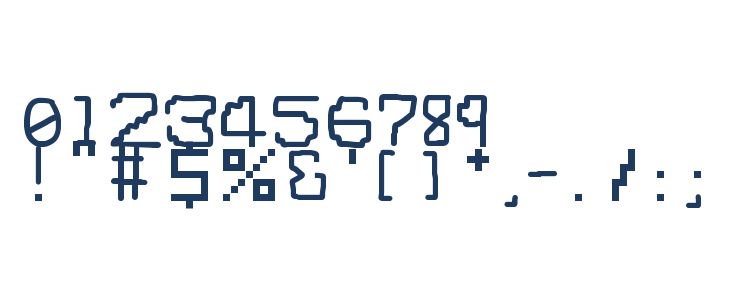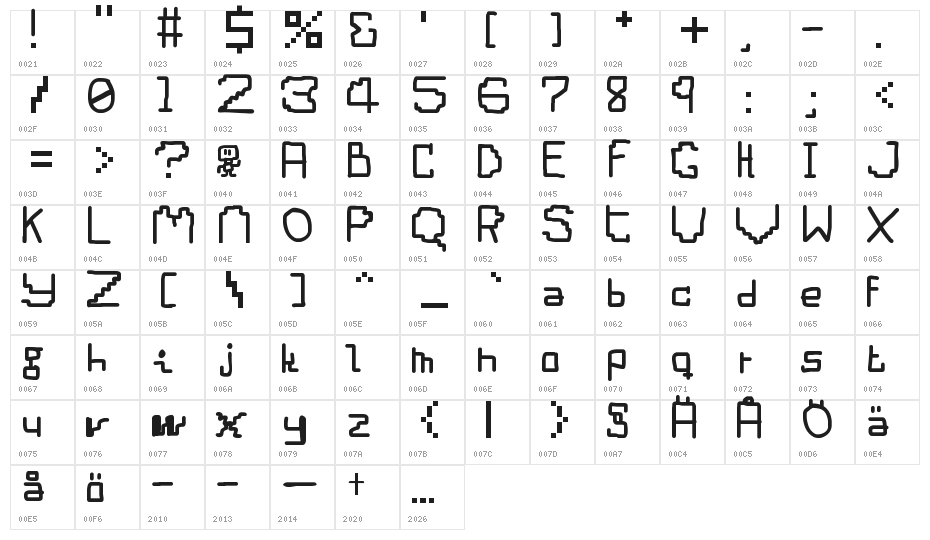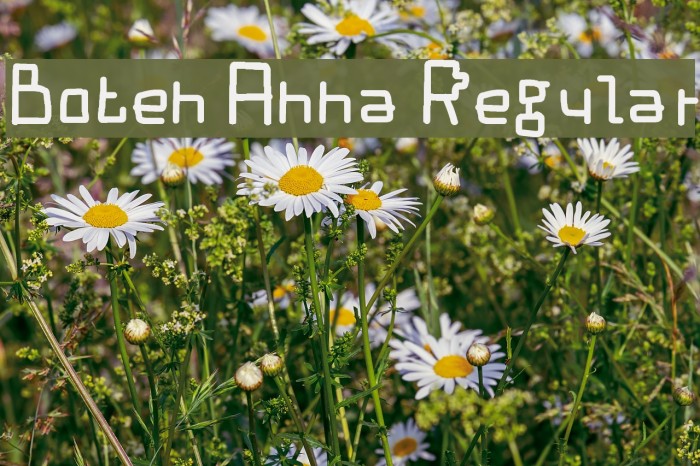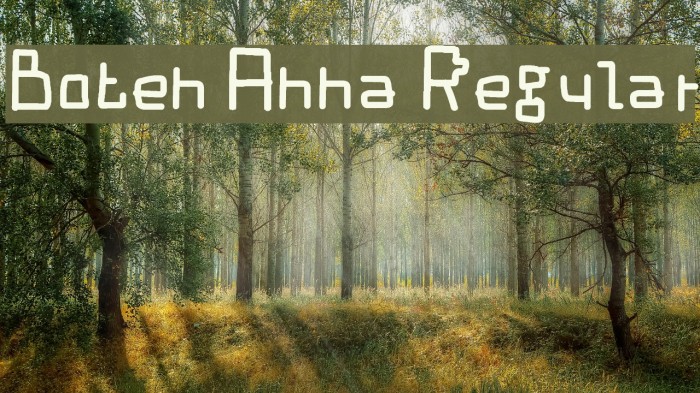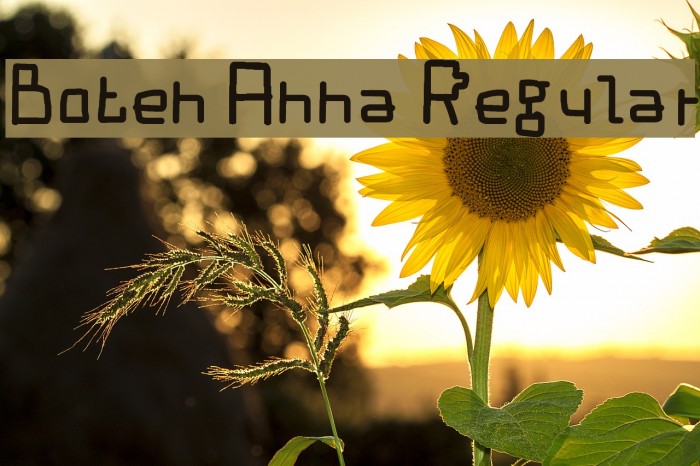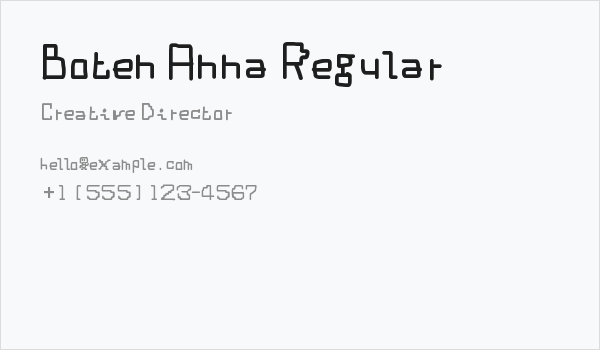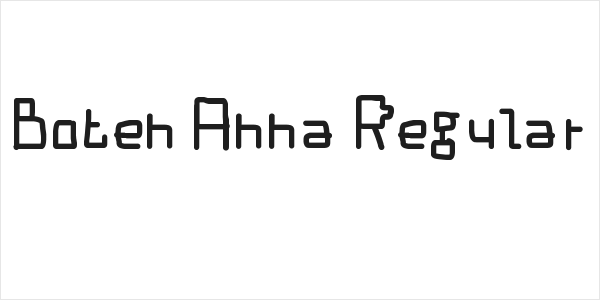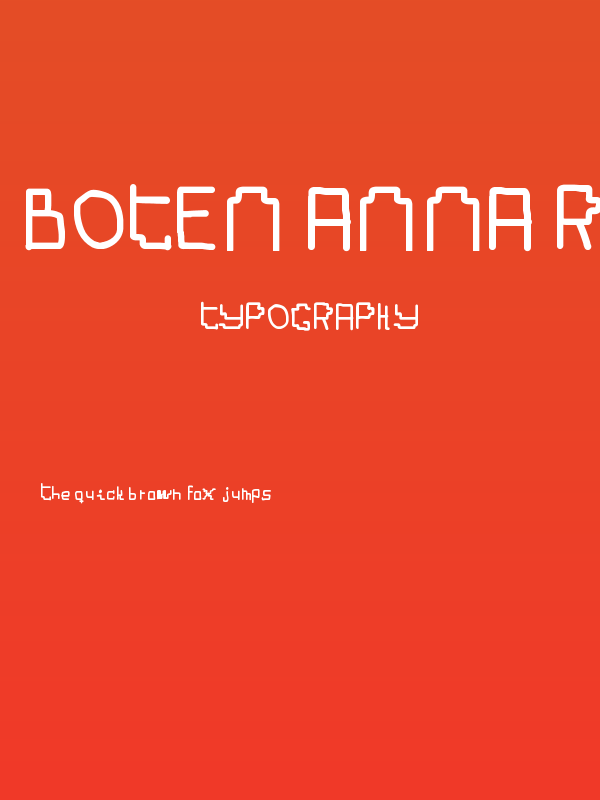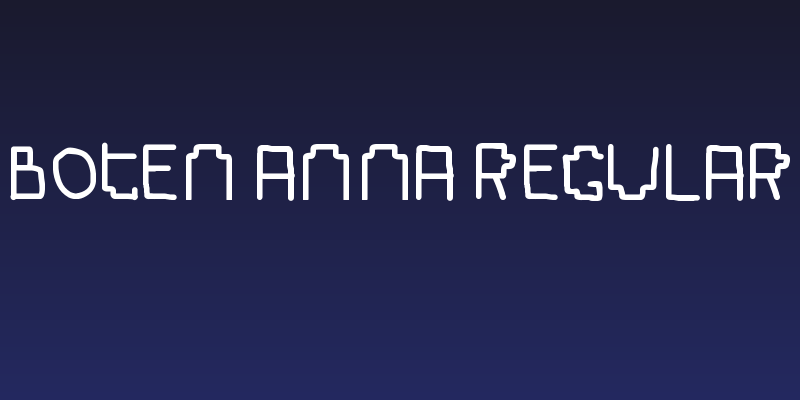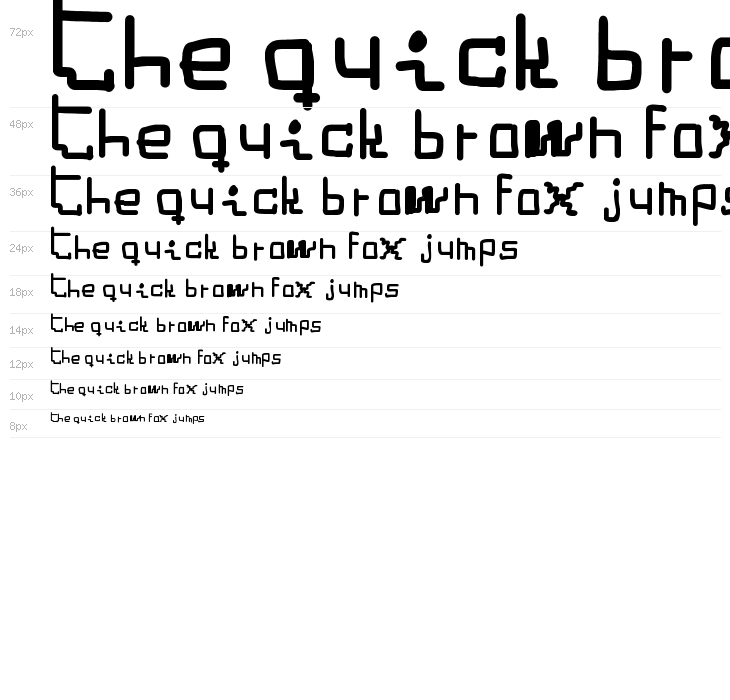
Boten Anna Regular Font
Boten Anna Regular Description
This font features a playful and quirky design with a hand-drawn aesthetic. The characters have a unique, irregular outline that gives them a lively and informal appearance. The uppercase and lowercase letters maintain a consistent style, with rounded edges and a slightly uneven stroke that adds to the whimsical feel. Numbers and special characters follow the same design principles, ensuring a cohesive look across all glyphs. The font's distinctive style makes it suitable for creative and fun projects, where a casual and approachable tone is desired.
| Proposed Projects | Ideal for children's books, casual invitations, playful branding, and creative posters. |